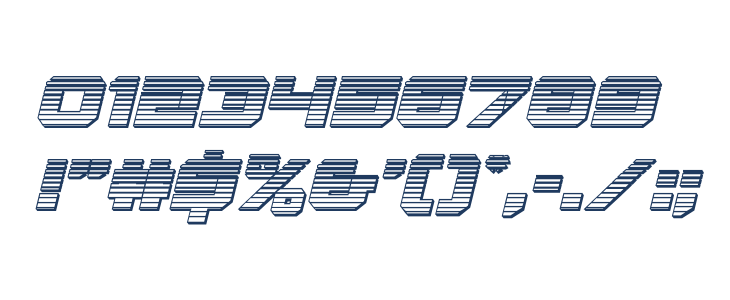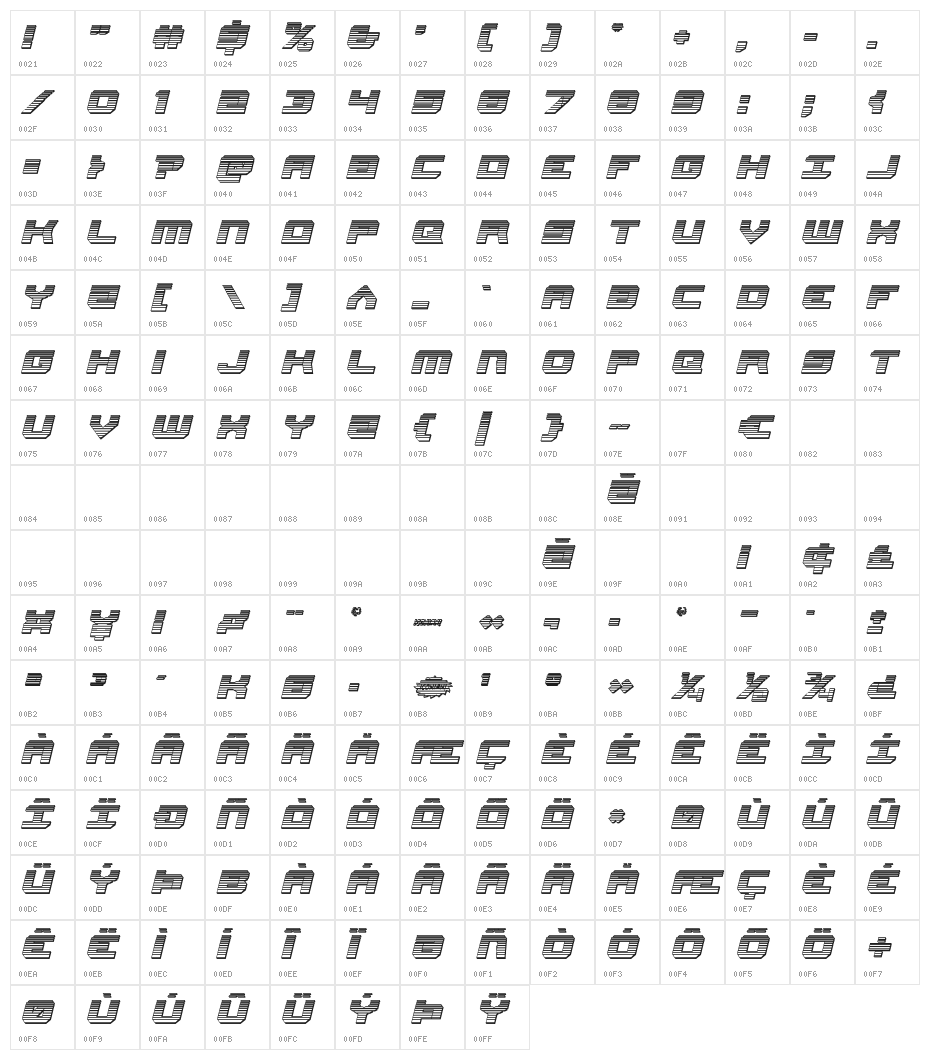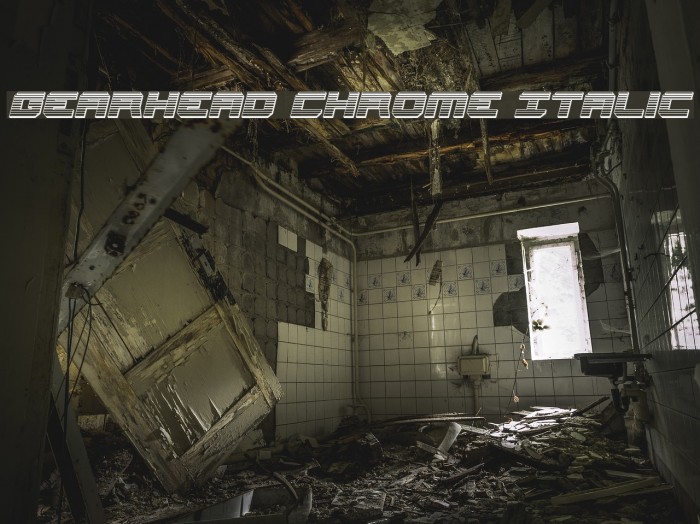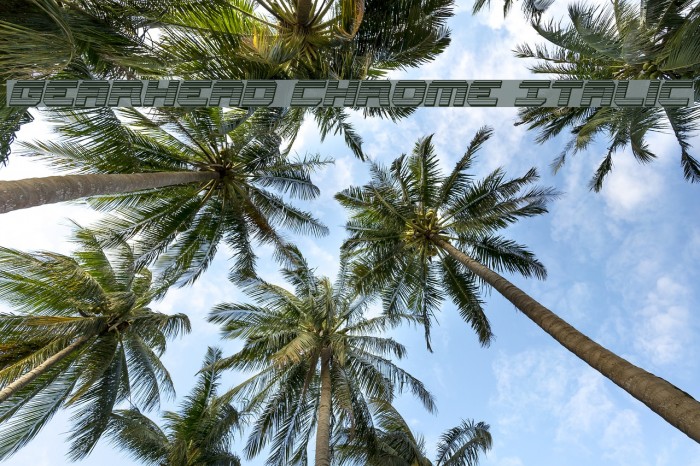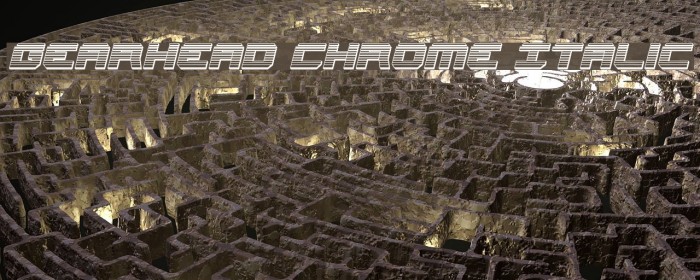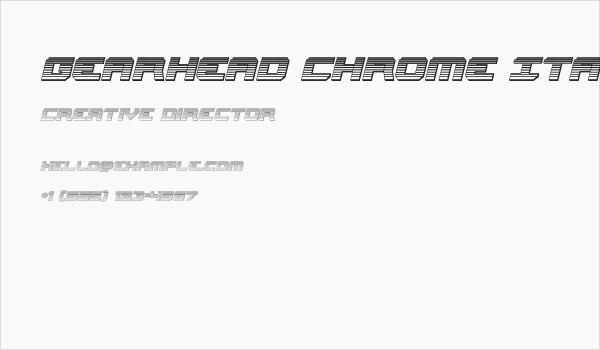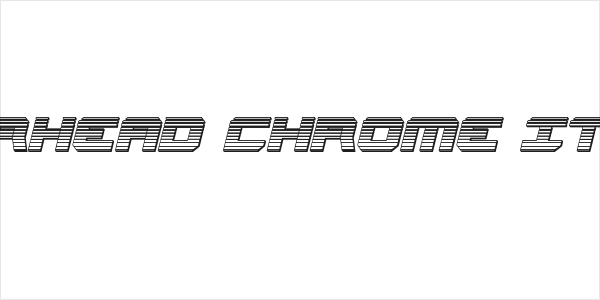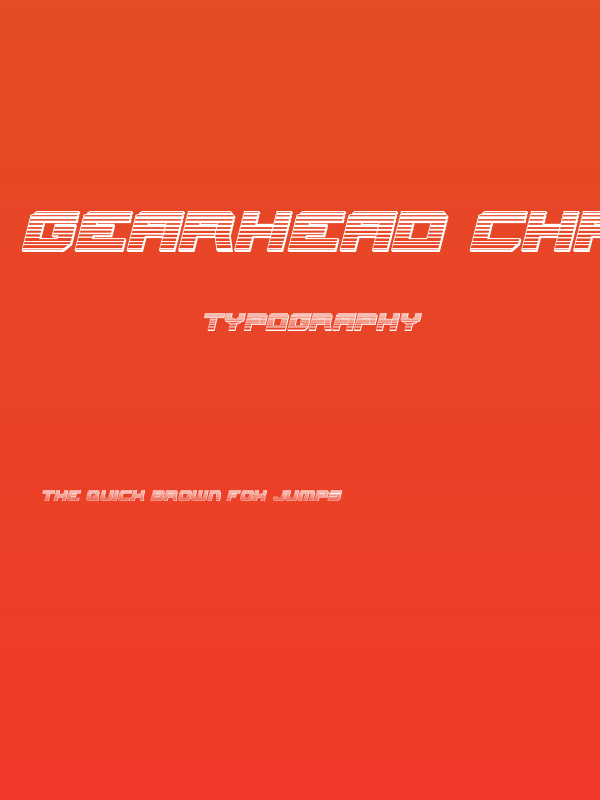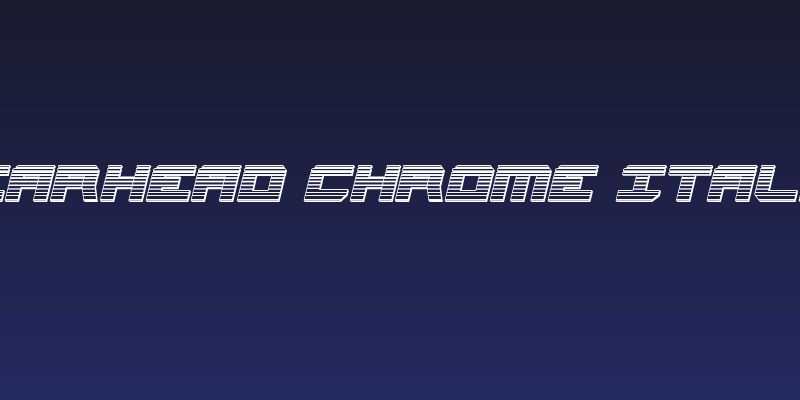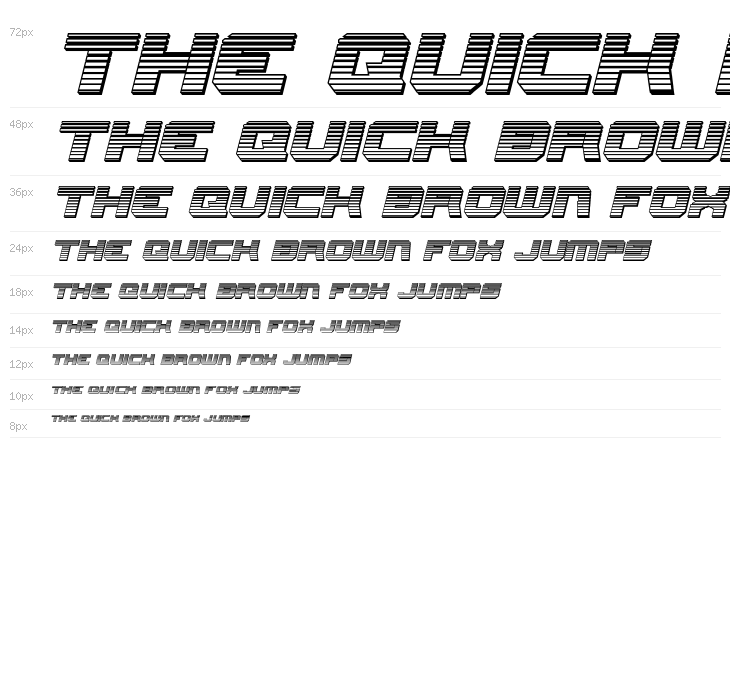
Gearhead Chrome Italic Font
Gearhead Chrome Italic Description
This font features a bold, futuristic design with a distinct chrome-like appearance. Each character is constructed with multiple parallel lines, creating a layered, three-dimensional effect. The italicized slant adds a dynamic, forward-moving energy, making it ideal for projects that require a modern, tech-inspired look. The uppercase and lowercase letters maintain a consistent style, while the numerals and special characters complement the overall aesthetic. The font's unique structure and bold presence make it stand out, suitable for eye-catching headlines or logos.
| Proposed Projects | Ideal for technology branding, sci-fi themed posters, video game titles, and automotive advertisements. |